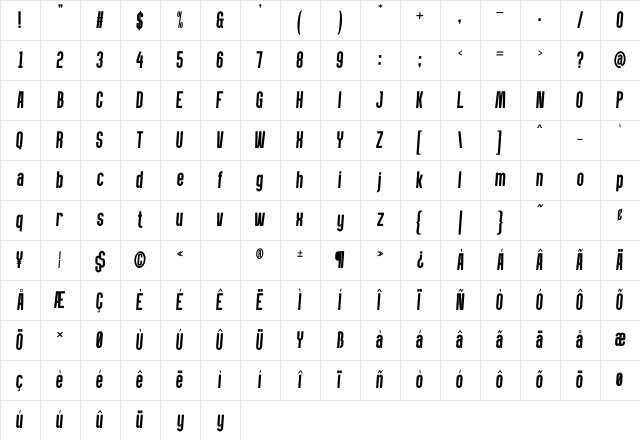
DUMERO Italic Rounded
Style: Italic Rounded
Designer: Maikohatta
Design Context for DUMERO
DUMERO softens its letterforms with rounded terminals, giving it an approachable, friendly quality that works well in consumer-facing and digital contexts. The slanted form adds forward momentum and visual energy.
Font Pairing: Pairs well with a rounded or humanist sans for body copy, maintaining the friendly tone without relying on DUMERO to carry extended reading.